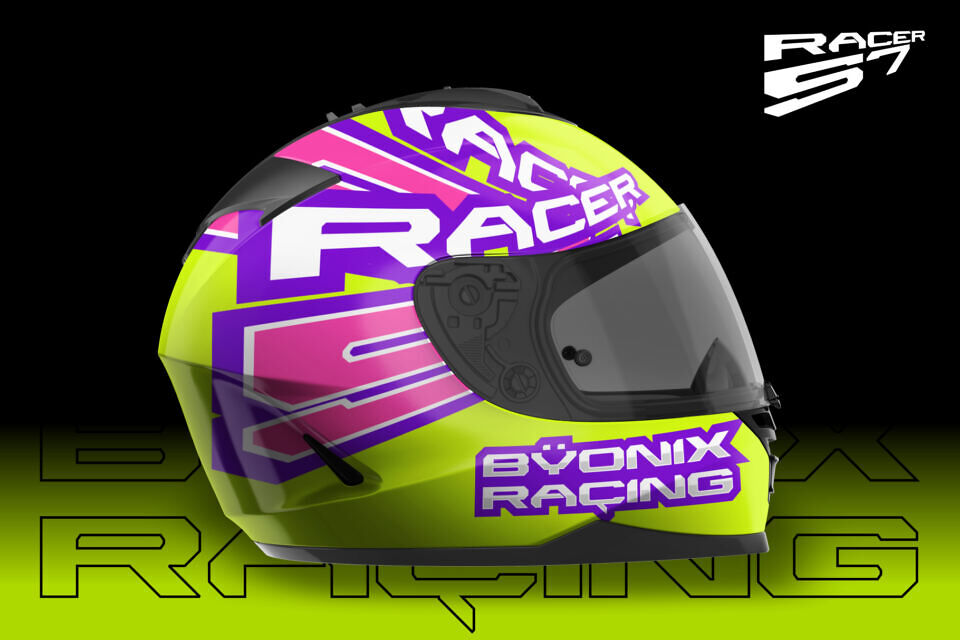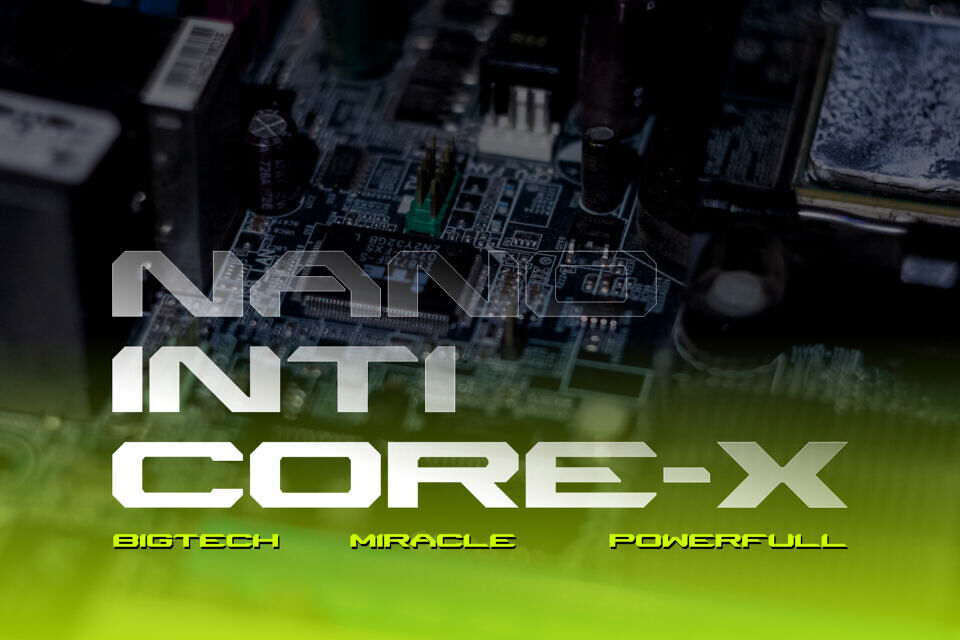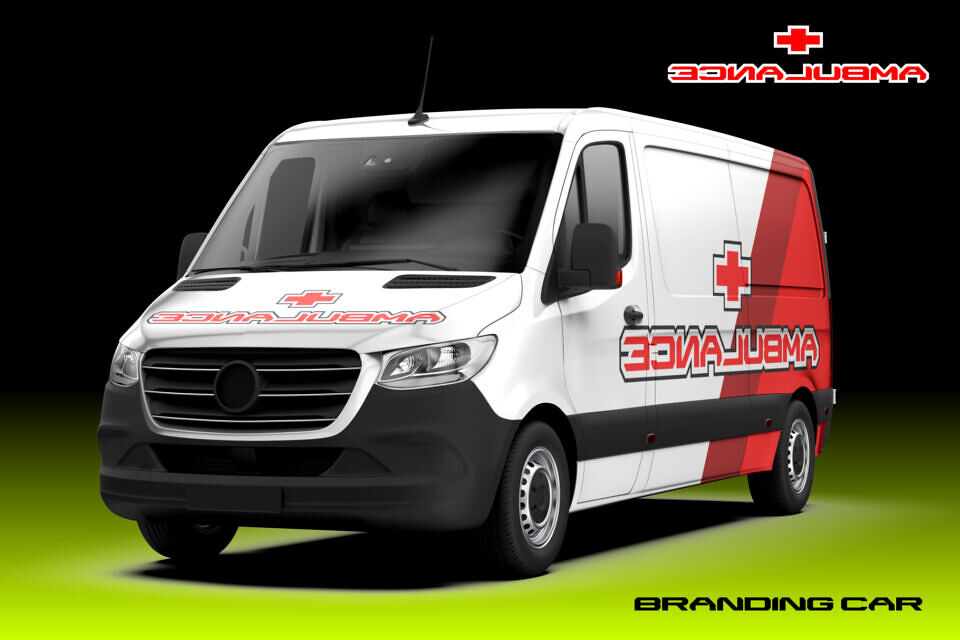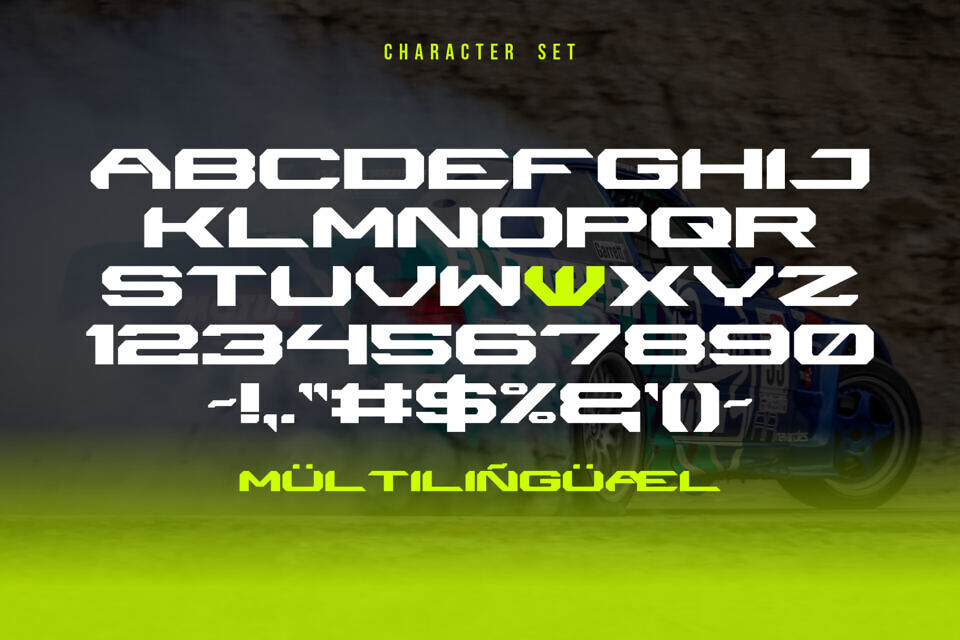
Byonix Racing Font
Byonix Racing is a bold, racing sporty font engineered to express speed, motion, and competitive energy. With sharp geometry, extended strokes, and sleek angles, it perfectly captures the adrenaline of motorsport design. Ideal for racing logos, event posters, and sports branding, this typeface ensures every project radiates intensity and motion.
Crafted in all caps with numerals and punctuation, Byonix Racing offers global versatility through multilingual support. Its dynamic structure and powerful presence make it the perfect choice for esports, automotive branding, and athletic visual design.